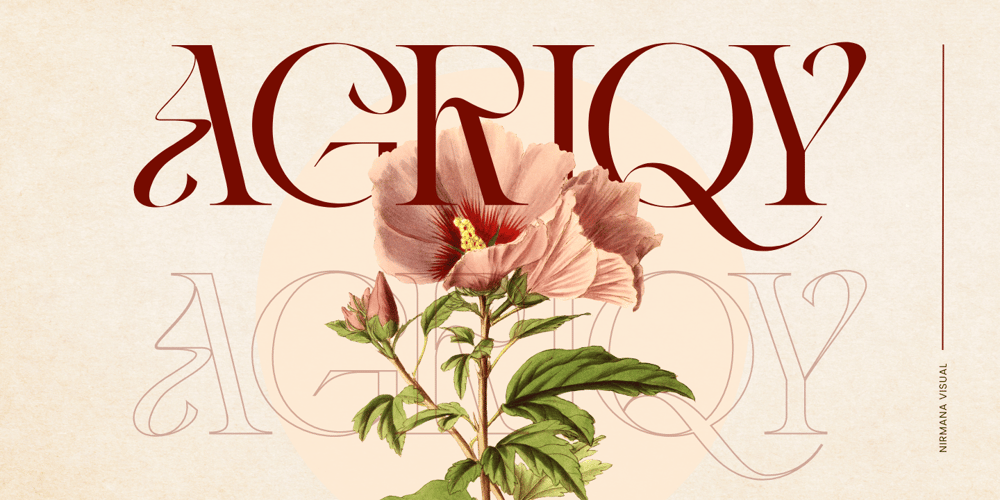
Vintage Agriqy
Vintage Agriqy font
Vintage Agriqy Font Family was designed by Sigit Dwipa and published by Nirmana Visual. Vintage Agriqy contains 1 styles and family package options. Introducing our luxurious serif font, an epitome of elegance and sophistication. This font is masterfully designed to reflect the essence of high-end style, featuring meticulously crafted ligatures that enhance its refined character.Each letterform is a testament to timeless beauty, with gracefully balanced thick and thin strokes that exude an air of opulence. The addition of unique ligatures adds a touch of artistry and distinction, ensuring that your text stands out with an exquisite flair.